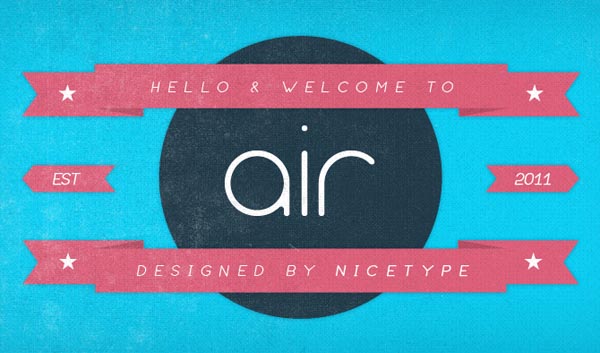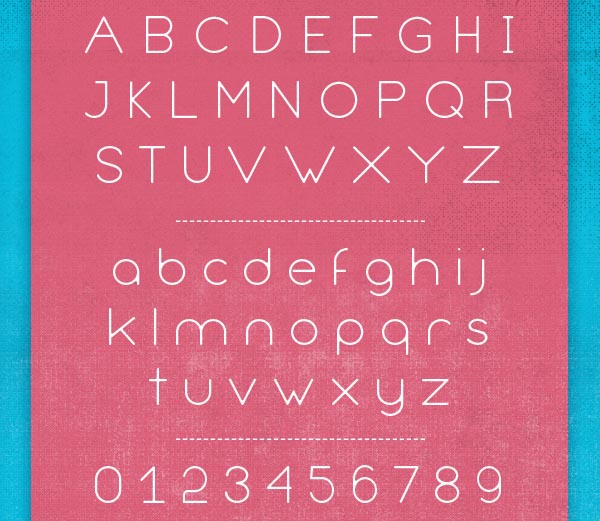
Air Typeface.
Air is a clean, contemporary, geometric sans serif typeface by Nice Type. The font is designed for use in minimalist layouts and designs such as fashion magazines or luxury brands. Air has a smooth rounded face. The typeface works perfect in editorial layouts and striking design when used with or without imagery.